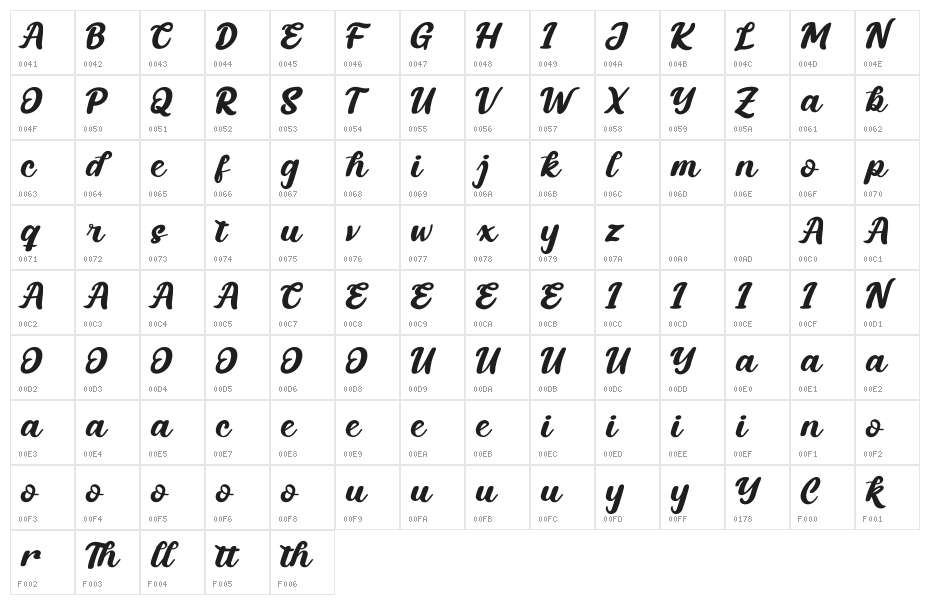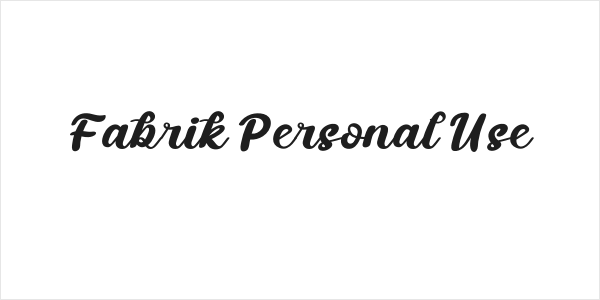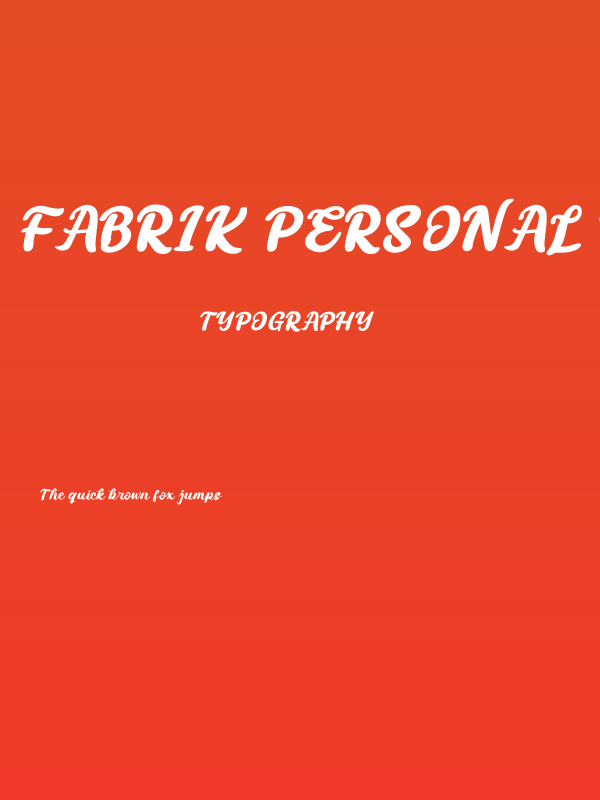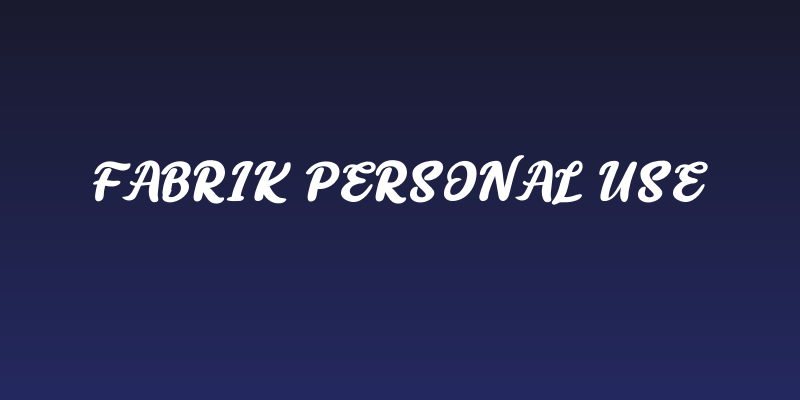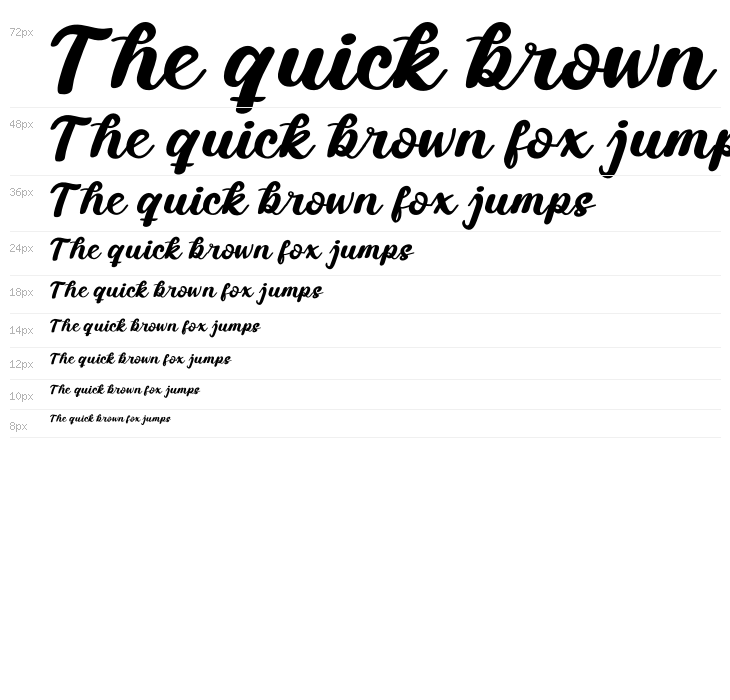
Fabrik Personal Use Font
Fabrik Personal Use Description
This font features a bold and flowing script style, characterized by its smooth, cursive letterforms that exude elegance and fluidity. The uppercase letters are slightly more ornate, with sweeping curves and flourishes that add a touch of sophistication. The lowercase letters maintain a consistent flow, enhancing readability while retaining a stylish appearance. The font's design is reminiscent of classic calligraphy, making it suitable for projects that require a personal or artistic touch. Its bold weight ensures visibility and impact, while the moderate contrast in stroke thickness adds depth and dimension to the characters.